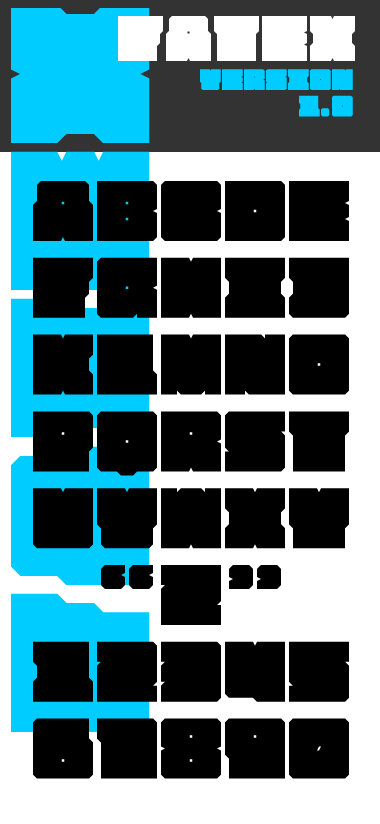
• I'm a big fan of big fat font. This is a modest essay. I try to find a way for skinnier glyph like T or Y to does'nt look to thin compare to rest of font. Unhappy with the G,H,7 crit and suggestion are welcome Was'nt sure as well if I should do a monocase font, I tend to prefer when "Space" is not to large.
It's very consistent, still legible, and most importantly, looking very good. There are gray dots (optical illusion) in the sample between the letters. The G may need some work. Good demo pic. 10/10
I am also a fan of fats and this one of the best of my large collection. I agree for the G. Why not try something more close to the C, even if a little more ambiguous ? All the the rest is perfect and i 'm completely fond of your A. Excellent !
This font looks cool and consistent. Good work.
I'll try some attemp for the G, I'll be back with sample to vote, because I don't know if I'm to tired or what but I can get trought this G.
@frodo: gray dots, I don't understand what you mean, is it bad of good? or do you mean I need to enlarge the spacing ?
Gray dots are not good or bad. They are simply there, as interesting and unintended consequences of your design. Don't tell me you still can't see them.
No no now I see them don't worry :) but I nerver pay attention to it
I tought you ask me to do something to avoid them
A very readable fat font. 10/10
I like how you improved your G. It was a very difficult task, i think you succeeded. Direct download for me
I was talking of the main one, not the alternates
NE tu as l'oeil c'est la seule modifcation faite :)
ecoute je suis assez fatigué ces temps-ci j'ai beaucoup de boulot... donc parfois resoudre des petits problèmes de design me prends un temps fou
I'm a bit tired these days, small design problem seem to be mountains ;)
of course alternate G are only for test, I'll delete them, there bad.
My flexibilty according to the general concept is low, I only use few bricks and to realize a clear G is a difficult puzzle, Maybe I should take distance and come back on it in a week.
I'll open the [clone] button if anyone have a sharp idea :)
Je pense que la meilleure solution est de remonter le petit carré blanc du G au même niveau que celui du D, j'ai essayé en clonant, ça rend vraiment bien, mais je ne peux te faire de sample car au downloading ça a encore donné n'importe quoi, je ne sais pas ce qui passe avec ces téléchargements fantaisistes notamment quand je clone. Mais enfin, je crois que tu as compris la simple manoeuvre que je te propose.
Repose-toi dès que tu le peux, essaie de reprendre des forces.
A+
Ha! Merci, une solution si simple mais efficace.
Thank a lot NE, It's kind of you taking your personal time on my font, I appreciate it.
Comment by Michel Troy ~UrbanPixel~ (Upixel) 14th june 2010
nice font! Techno feeling !
Comment by zen_killa 14th june 2010
Thank you p2pnut and Zen_killa.
I'm always please when you comment or crit my work, make me move foward
Comment by Michel Troy ~UrbanPixel~ (Upixel) 15th june 2010
this is an outstanding font. one of the best block fonts available. original. stylish. versatile. this could work for hip-hop, but also made me think about a western, so it has a nice range :)
Comment by funk_king 15th june 2010
Congratulations! FontStruct Staff have deemed your FontStruction worthy of special mention. “FATEX” is now a Top Pick.
Comment by afrojet 15th june 2010
@Funk_king thank you, I'm not realy aware of HIP-HOP font Culture, I'll go and perfect my knowledge
@Afrojet It's always an honnor to be choose by you as a TOP PICK... Thank you
Comment by Michel Troy ~UrbanPixel~ (Upixel) 15th june 2010
Great great font! When I look at it, my fonts appears infront me like simple roughs. And a very good sample, too. Well done once again, cher fontinstructor!
Comment by elmoyenique 15th june 2010
Hola Elmoyenique, thank a lot for your warm word
Well I don't consider myself an expert... do you know the 10,000 hour rule witch says: You have to put over 10000 hours in an activity to have a high level of sucess
I also red somewhere that you design fonts depending the tool you use ;)
Witch I experiment myself, I use to do a lot of Calligraphy, and just by changing the nibs of my pen opens you a different new world